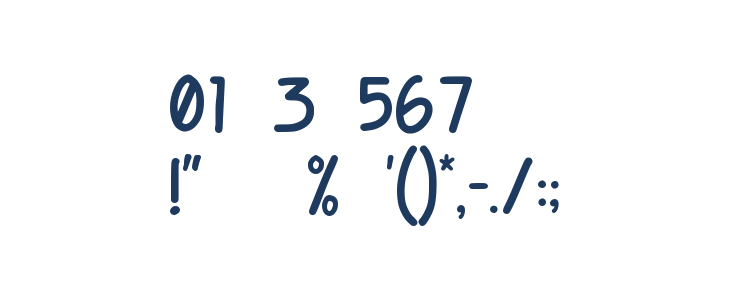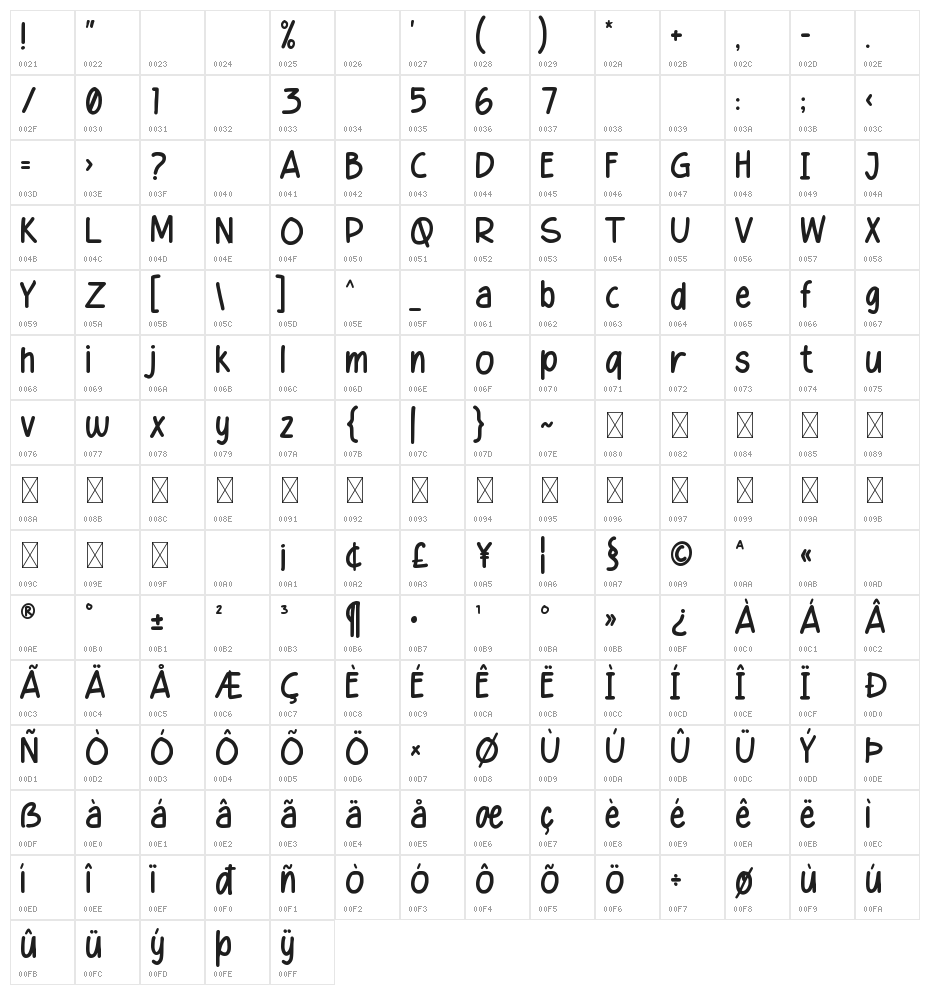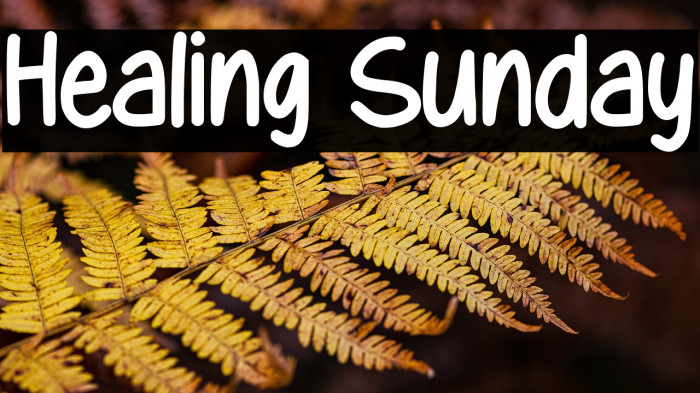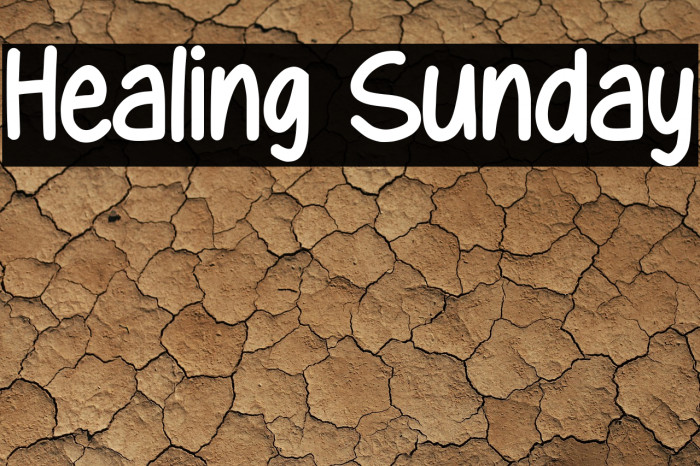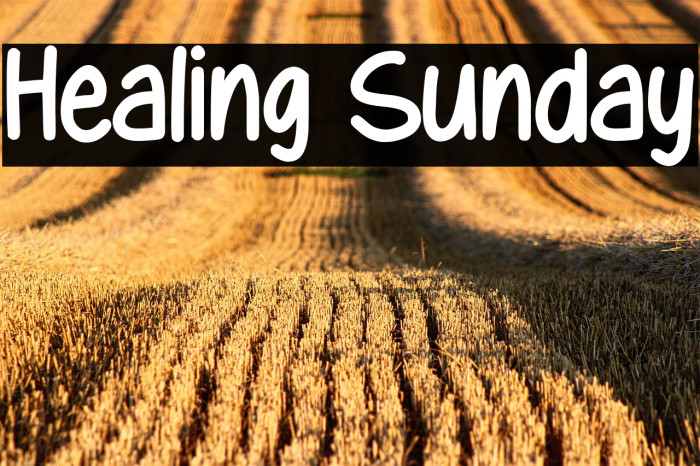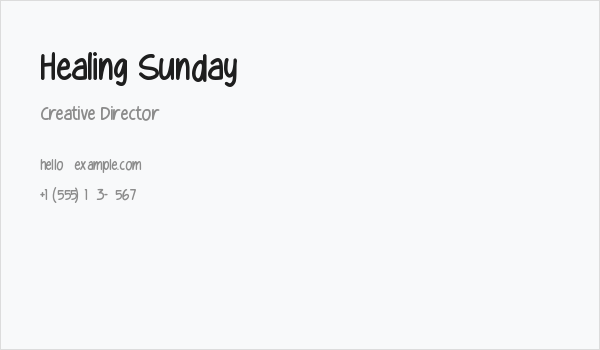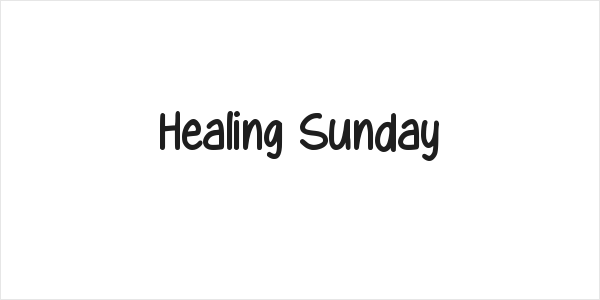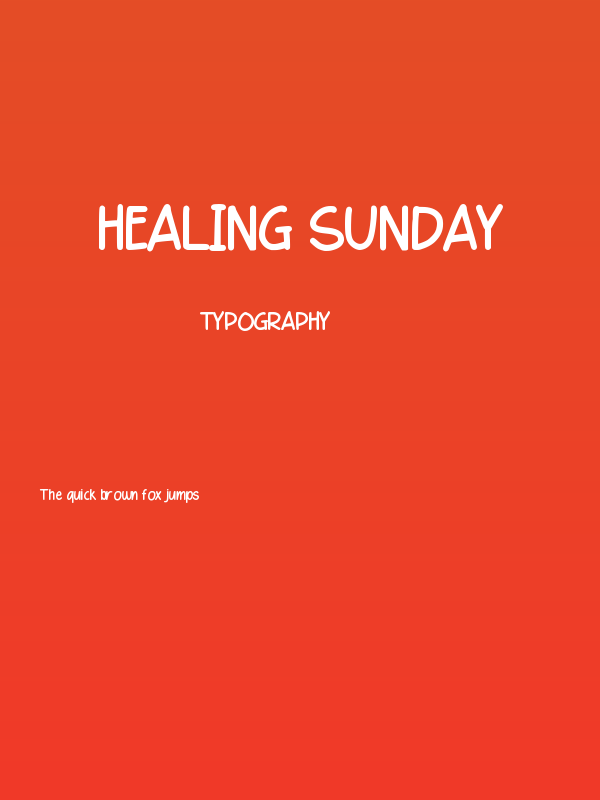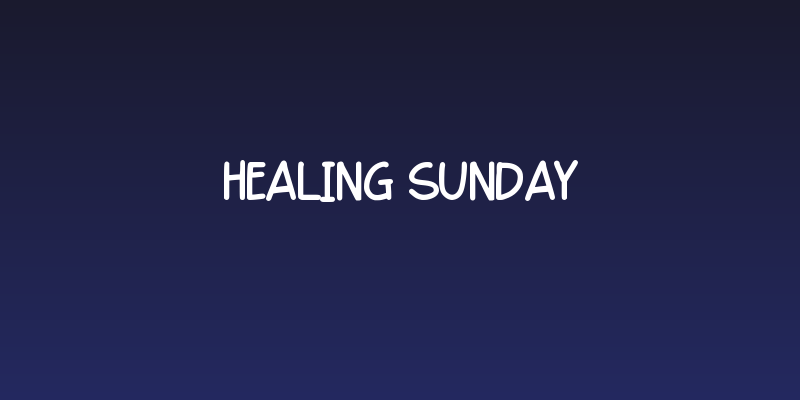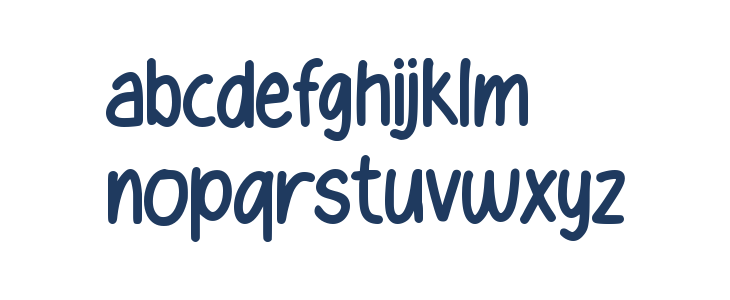
Healing Sunday Font
Healing Sunday Description
This playful and rounded font features a handwritten style with a casual and friendly appearance. The characters are bold and slightly irregular, giving it a whimsical and approachable feel. The uppercase and lowercase letters maintain a consistent style, with smooth curves and a moderate weight. The numbers and special characters are designed to match the overall aesthetic, ensuring a cohesive look across all text. This font is ideal for projects that require a personal touch, such as invitations, greeting cards, or children's books.
| Proposed Projects | Ideal for invitations, greeting cards, children's books, and playful branding. |